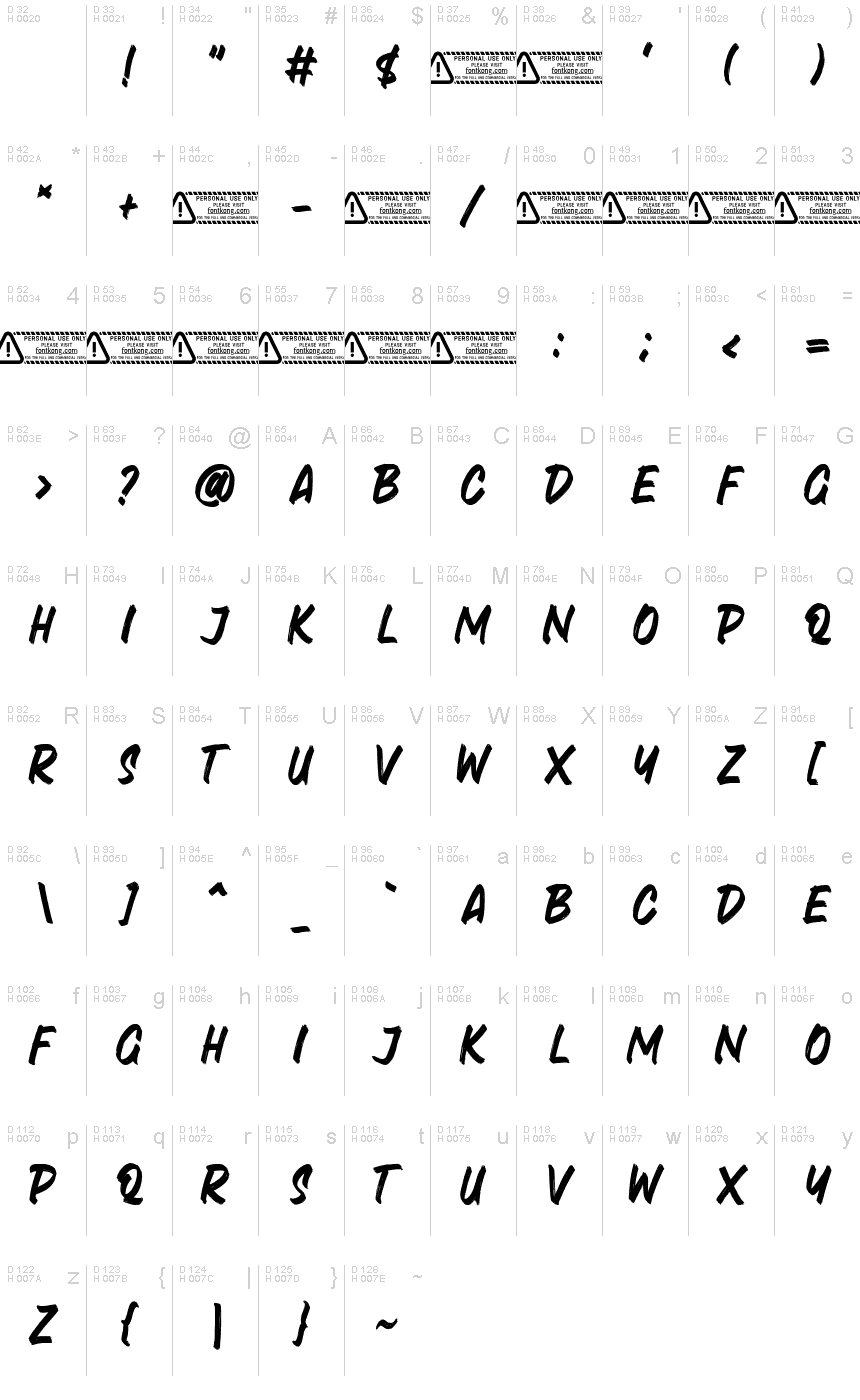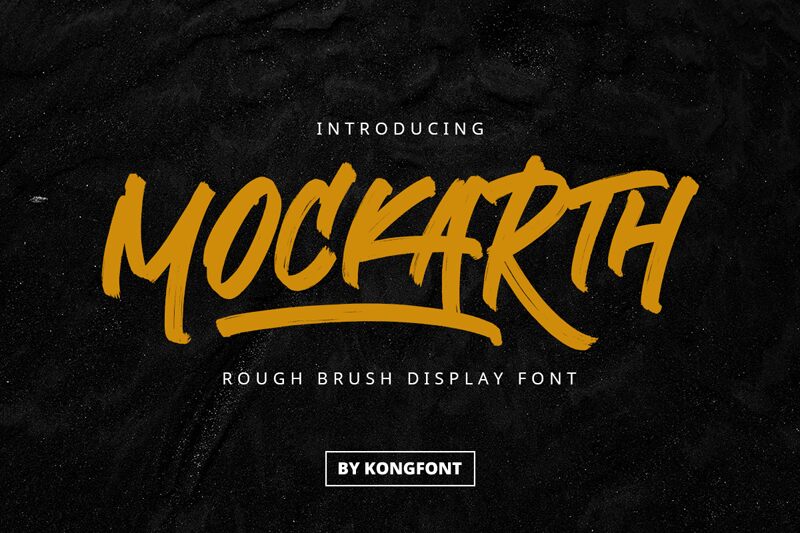
Mockarth
Mockarth, a creation by Kong Font, is a captivating rough brush typeface that exudes an artistic edge. With its semi-bold weight, it brings a boldness to any design project that requires a touch of raw energy.
Perfect for posters promoting music festivals or edgy fashion brands seeking to make a statement. Its unique texture will also enhance book covers of gritty crime novels or adventure stories. Mockarth's powerful presence will leave an unforgettable impression on logos and branding for tattoo studios, streetwear clothing lines, or urban-themed cafes and bars.